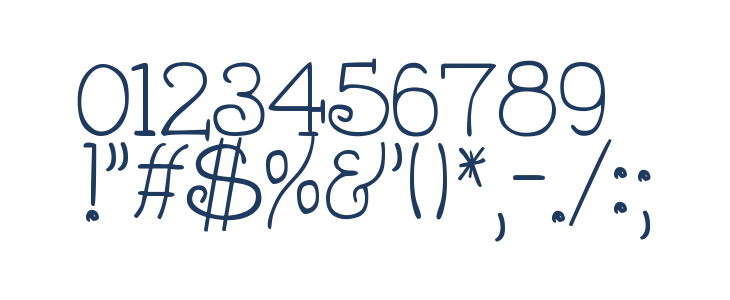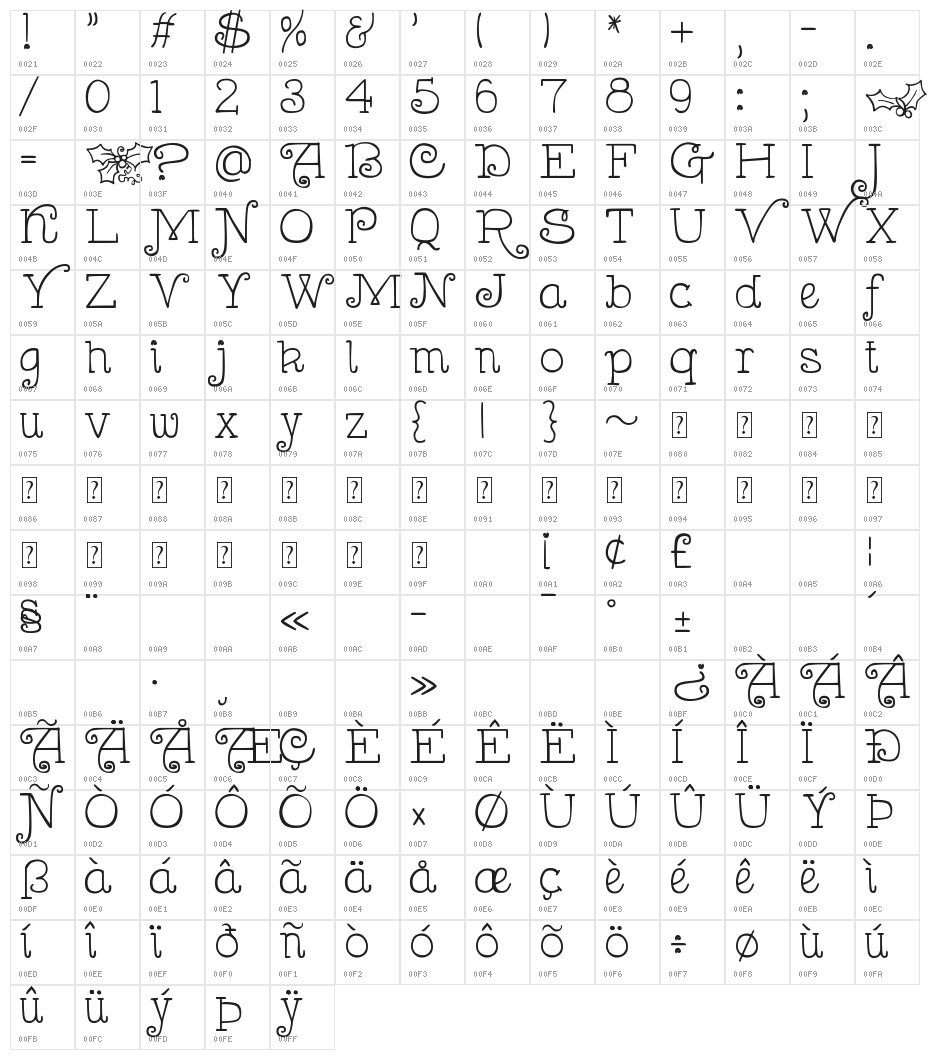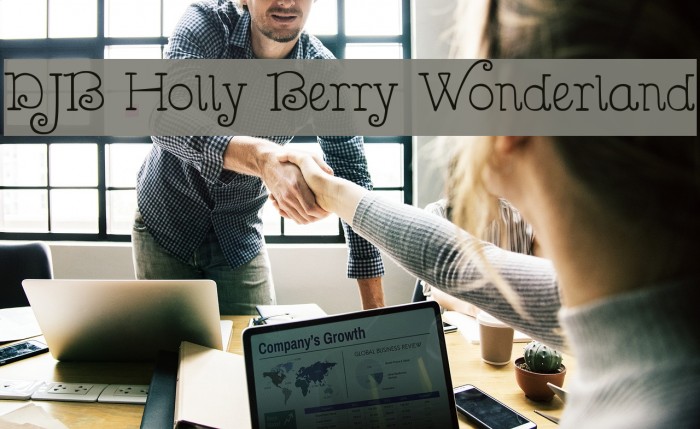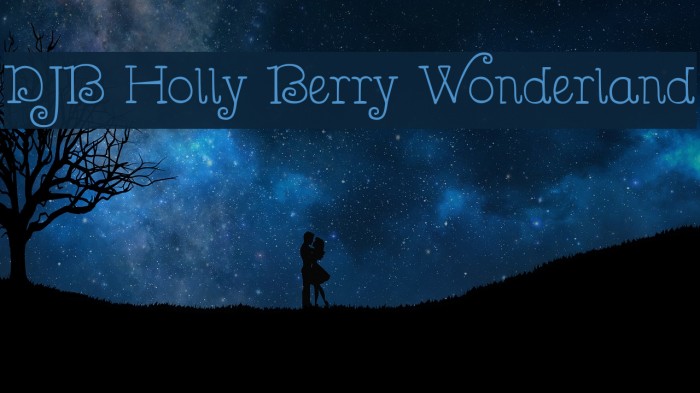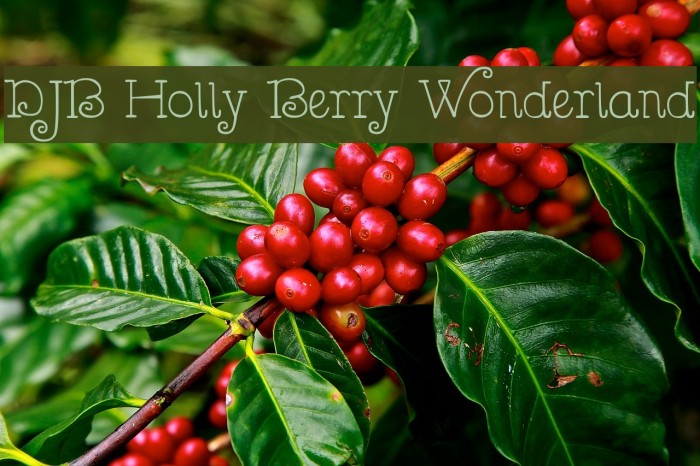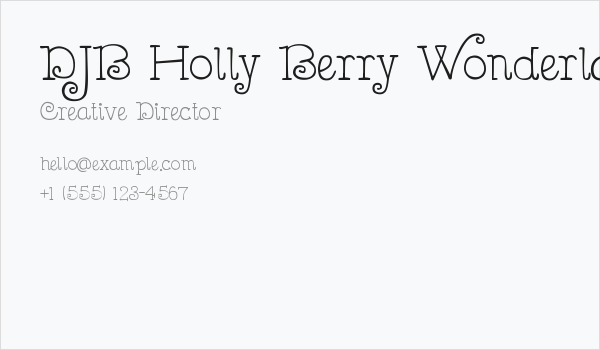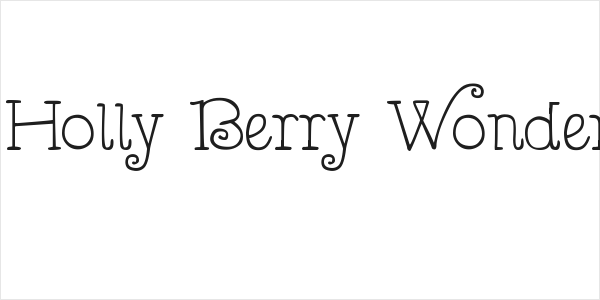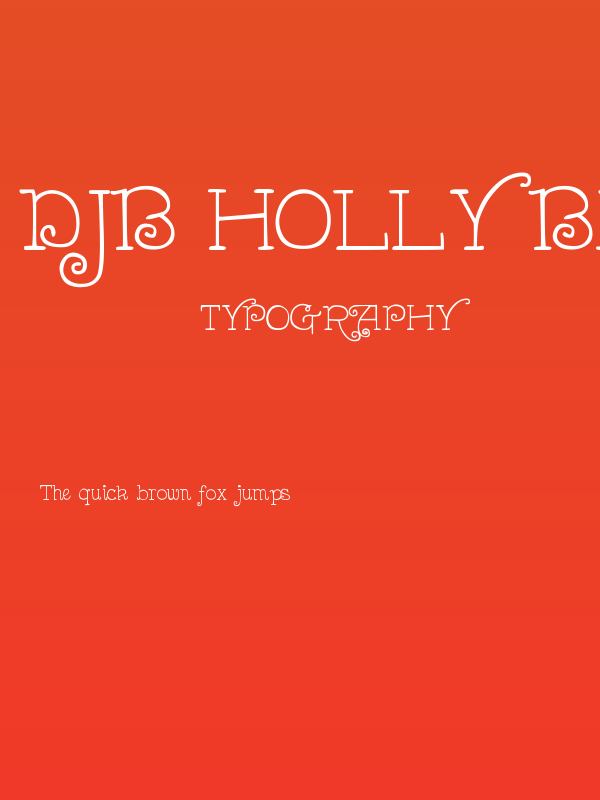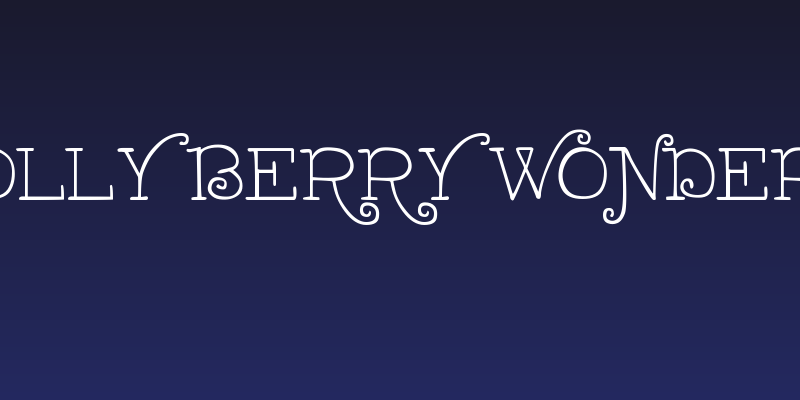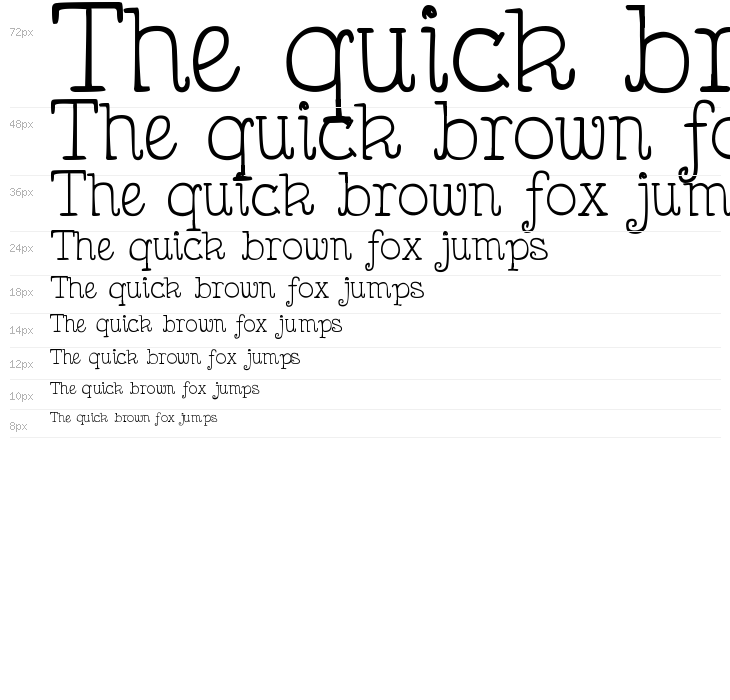
DJB Holly Berry Wonderland Font
DJB Holly Berry Wonderland Description
| Proposed Projects | Ideal for holiday cards, children's book covers, playful branding, and festive invitations. |